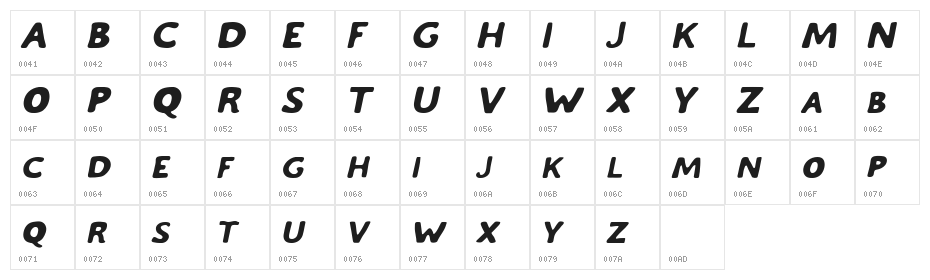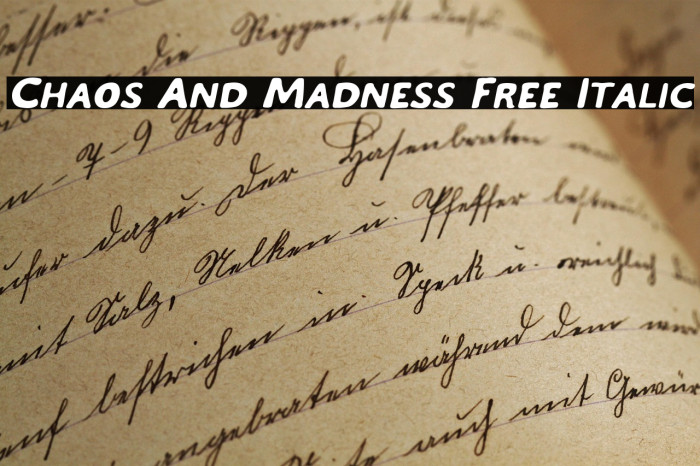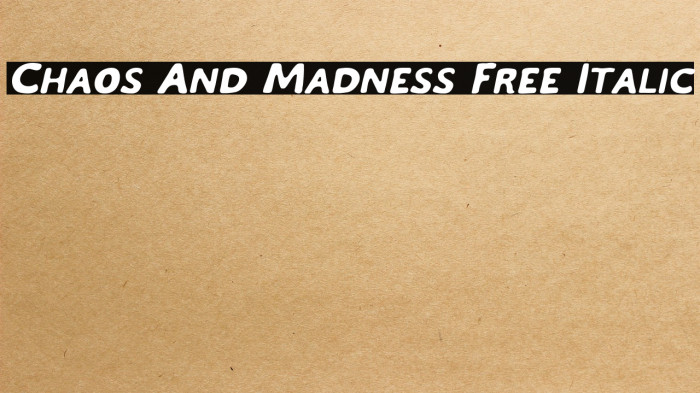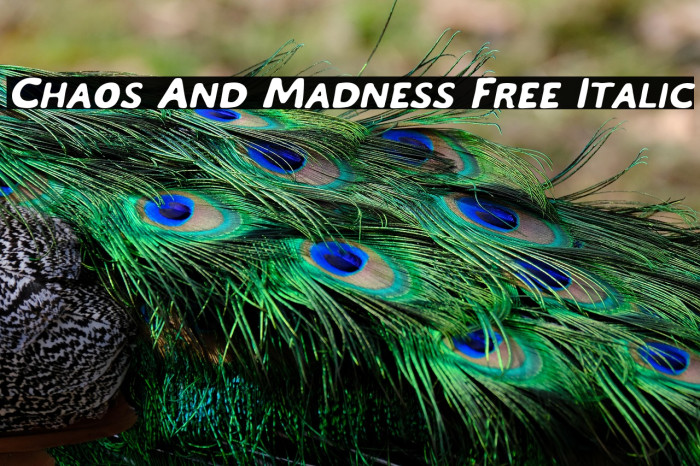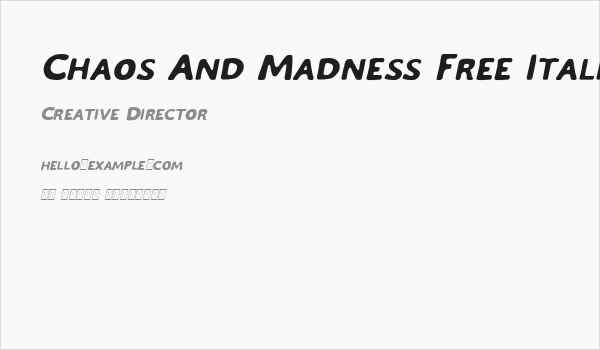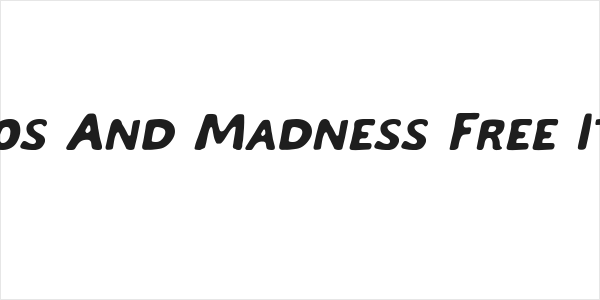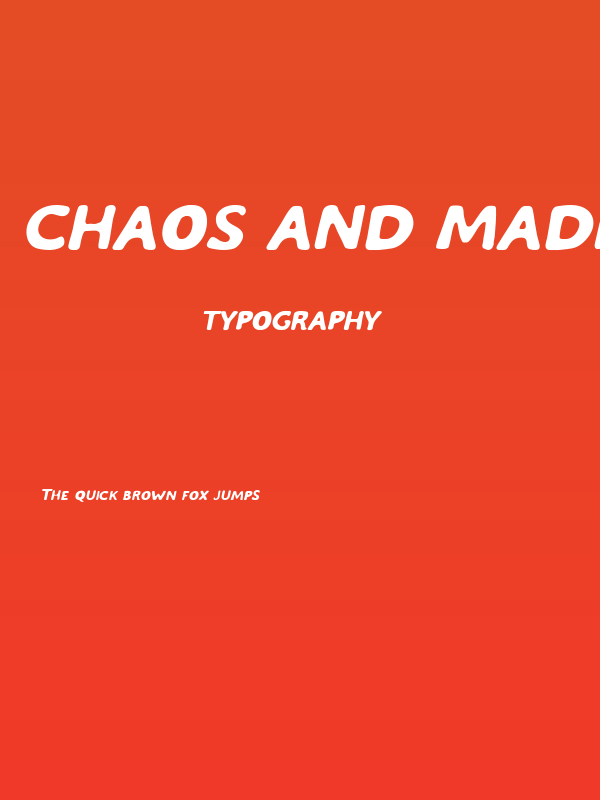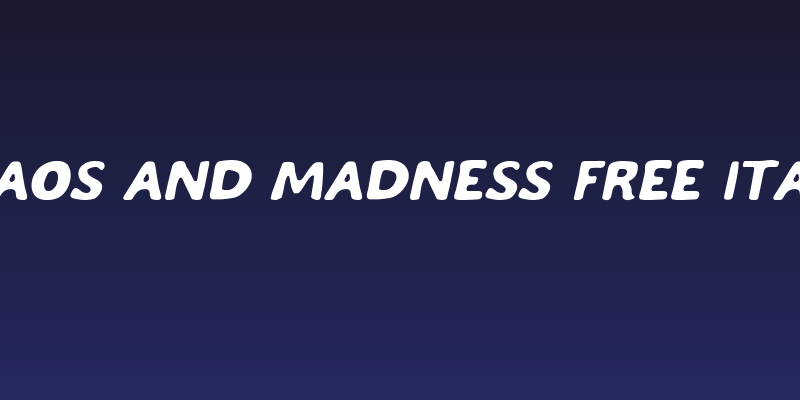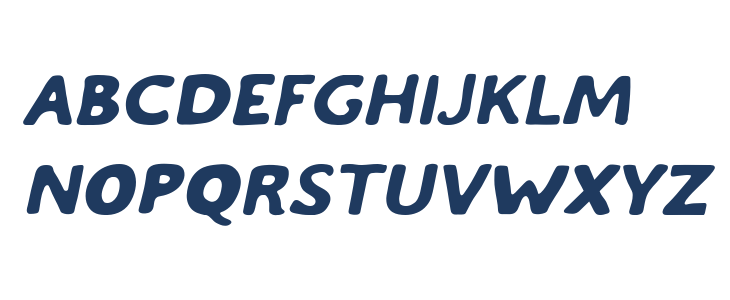
Chaos And Madness Free Italic Font
Chaos And Madness Free Italic Description
This font features a bold and dynamic style with a playful and energetic feel. The letters are slightly italicized, giving them a sense of movement and fluidity. The strokes are thick and rounded, contributing to a friendly and approachable appearance. The overall design is consistent, with each character maintaining a similar weight and width, ensuring readability and coherence across different text sizes. The font's unique character is enhanced by its slightly condensed form, which allows for efficient use of space without compromising legibility.